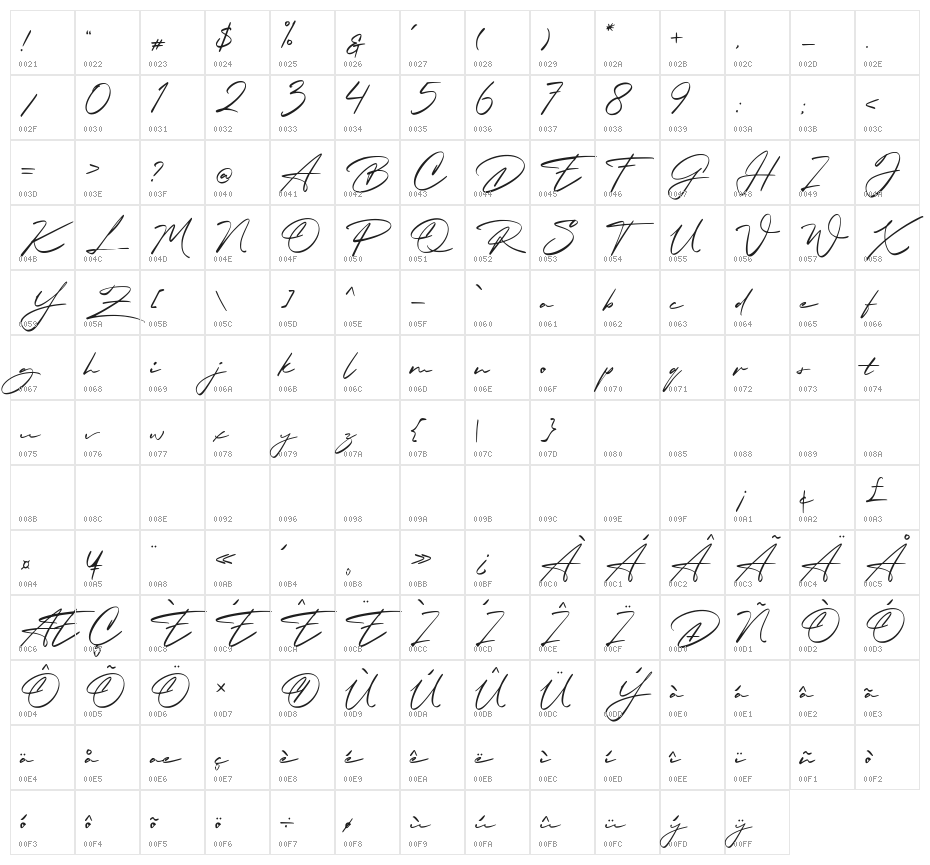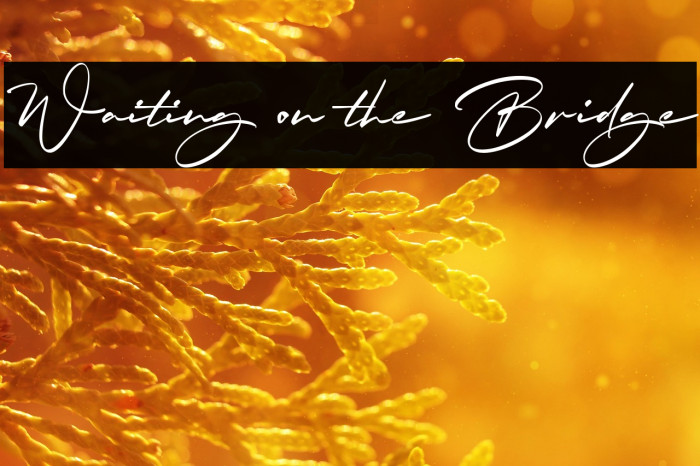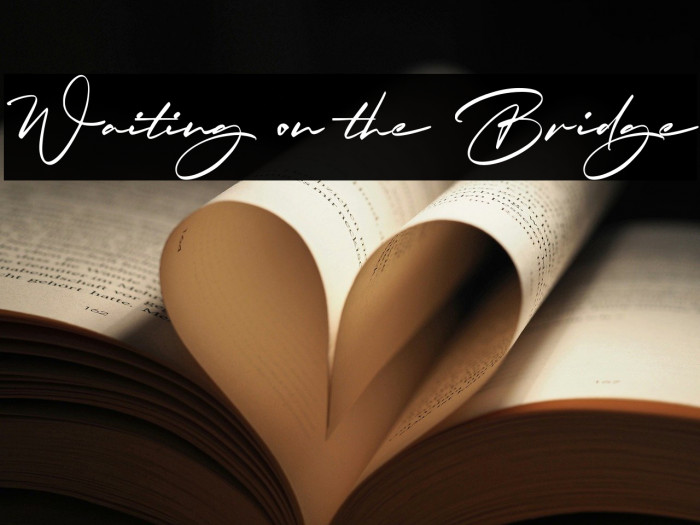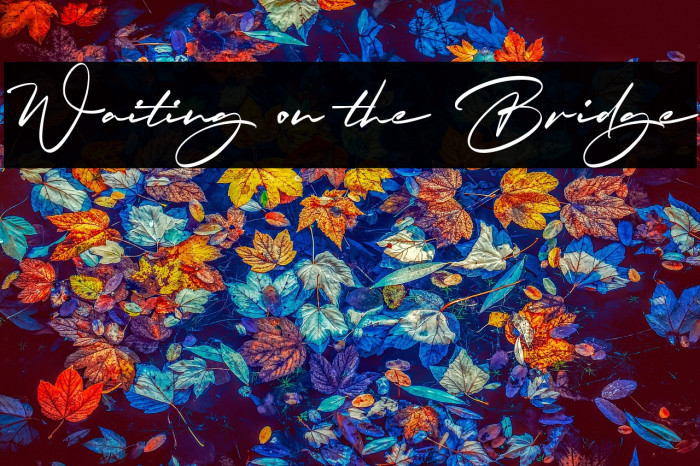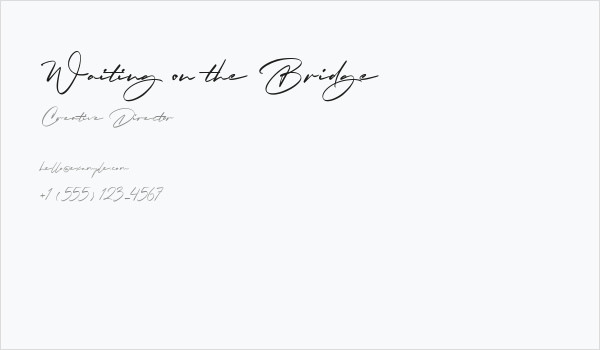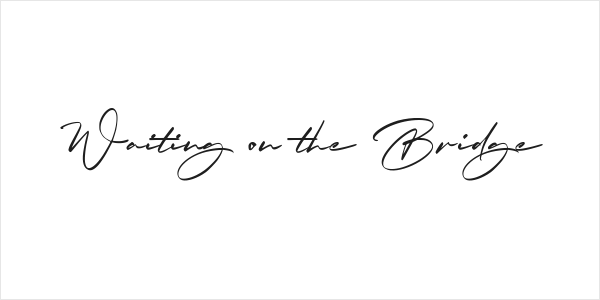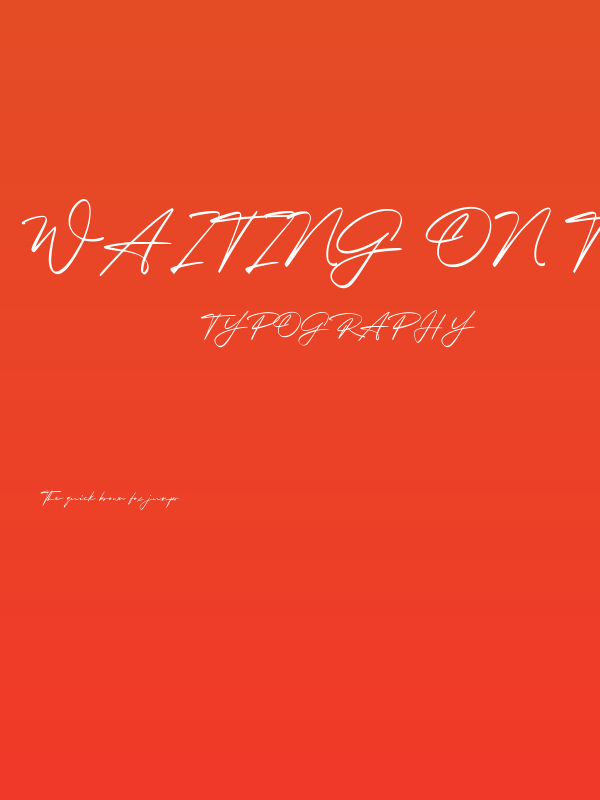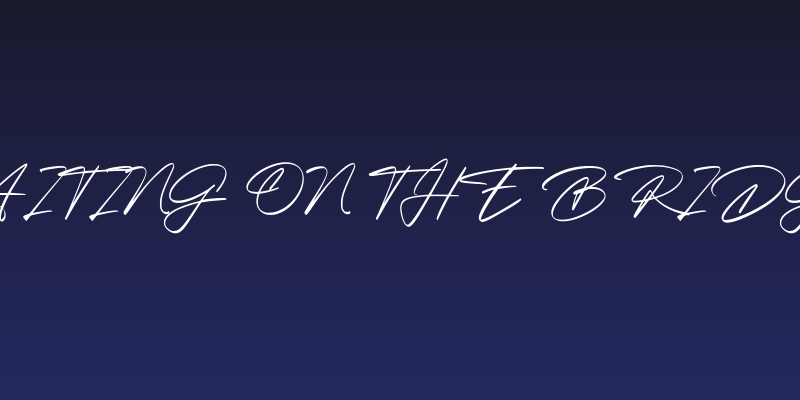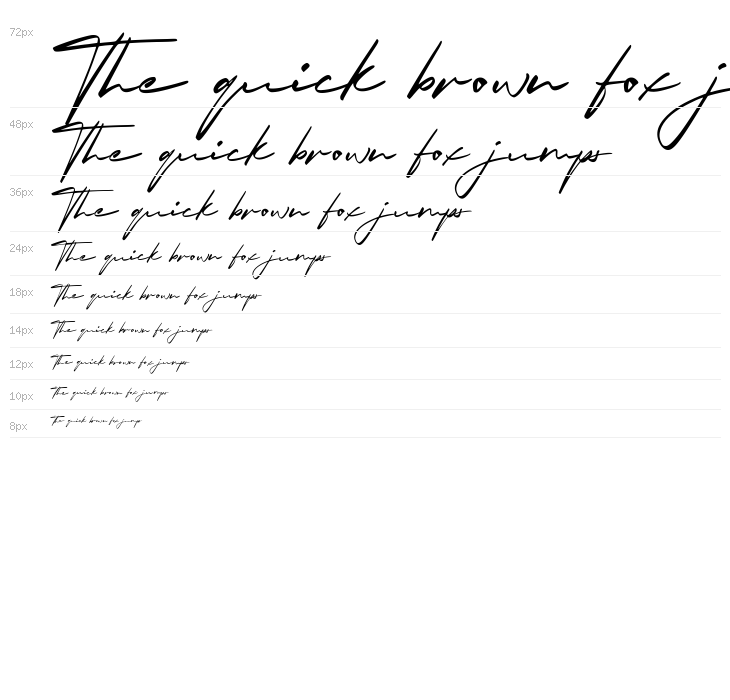
Waiting on the Bridge Font
Waiting on the Bridge Description
This font exudes a sense of elegance and fluidity, characterized by its cursive, handwritten style. The letters are connected in a smooth, flowing manner, giving it a natural and personal touch. The uppercase letters maintain a consistent height, while the lowercase letters vary slightly, adding to the dynamic appearance. The numerals and special characters are crafted with the same attention to detail, ensuring a cohesive look across all elements. The strokes are moderately thick, providing a balanced contrast that enhances readability without sacrificing style.
| Proposed Projects | Ideal for wedding invitations, personal branding, greeting cards, and elegant logos. |